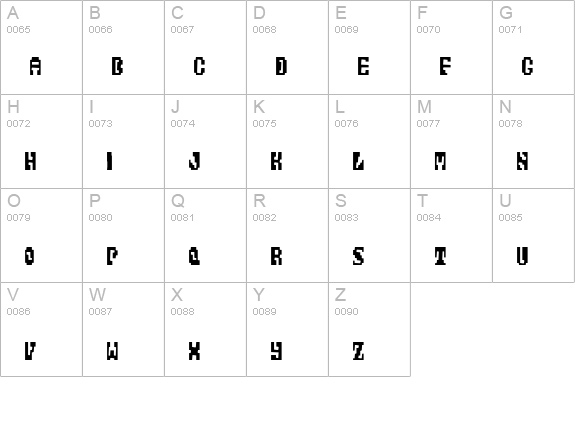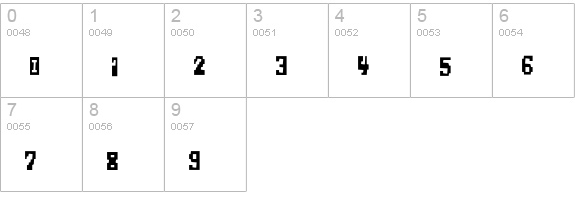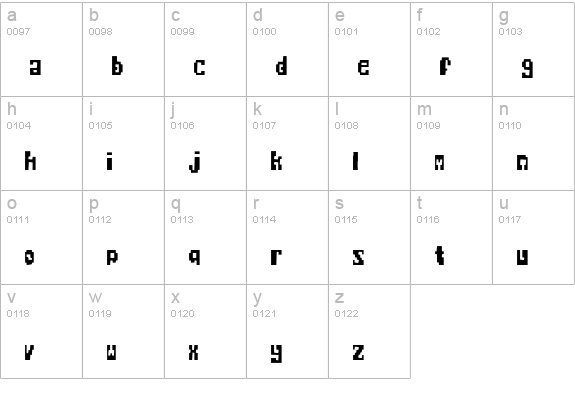
RatterBit Font Details
Introducing RatterBit, a breathtakingly unique font that effortlessly captures attention and adds a touch of creativity to any design project. This font is the epitome of versatility, seamlessly blending a modern aesthetic with a hint of vintage charm. With its clean lines and bold yet elegant strokes, RatterBit is sure to make a lasting impression. RatterBit is not only a visually stunning font, but it also possesses a distinct personality that sets it apart from the crowd. Its quirky and playful nature adds a touch of whimsy to any design, making it perfect for a wide array of creative projects. Whether you're designing a logo, crafting eye-catching headlines, or even creating captivating social media posts, RatterBit will effortlessly elevate your work to new heights. One of the best aspects of RatterBit is that it is completely free. Yes, you read that correctly - this incredible font is freely available to download at FontsMarket.com. So, not only can you enjoy the beauty and uniqueness of RatterBit, but you can also do so without breaking the bank. The designers behind RatterBit understand the importance of accessibility and believe that everyone should have the opportunity to utilize high-quality fonts in their projects. That's why they have made RatterBit readily available to anyone who wishes to add a touch of charm and originality to their designs. In terms of functionality, RatterBit is incredibly versatile. It is compatible with various design software, ensuring a seamless integration into your creative process. Furthermore, its extensive character set includes both uppercase and lowercase letters, numbers, punctuation marks, and special characters, giving you endless possibilities to experiment and create. So, whether you're a professional graphic designer looking to enhance your portfolio or an aspiring artist starting your creative journey, RatterBit is the perfect font to unleash your imagination. Free of charge and readily available at FontsMarket.com, this font is a must-have for anyone seeking to make a bold statement with their designs. Download RatterBit today and let your creativity soar to new heights.